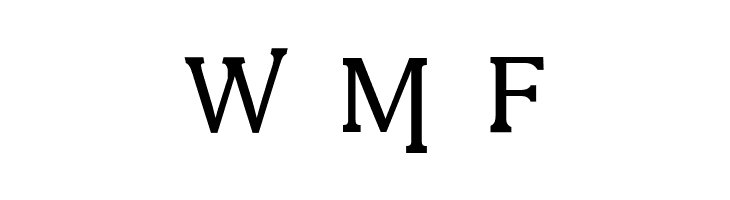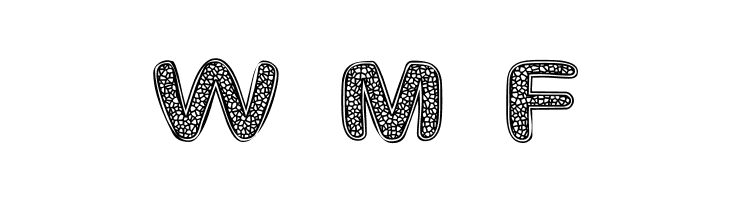
A classic, light serif font with a condensed width and medium contrast.
A classic serif font with elegant, elongated strokes and pronounced serifs.
A playful, decorative font with a crinkled, textured appearance and bold outlines.
A classic serif font inspired by Roman inscriptions, exuding elegance and authority.
An elegant italic serif font with classic styling and moderate contrast.
A classic serif font with bold, bracketed serifs and a strong, traditional presence.
An elegant script font with flowing lines and classic appeal.
A bold, classic serif font with strong, clean lines and sharp edges.
A structured, high-contrast serif font with a classic Roman architectural influence.
A classic serif font with elegant, Roman-inspired letterforms.
A geometric, precise Latin capital font with classical design elements.
A classic italic font with medium contrast and elegant strokes.
A classic, calligraphic font with fluid, artistic strokes.
A classic serif font with a hand-crafted, artistic touch.
A bold, rounded serif font with a classic yet approachable style.
A classic serif font with elegant, sharp serifs and a timeless style.
A classic serif font with elegant, Roman-inspired details.
An italic font with Greek influences, offering medium contrast and a classical style.